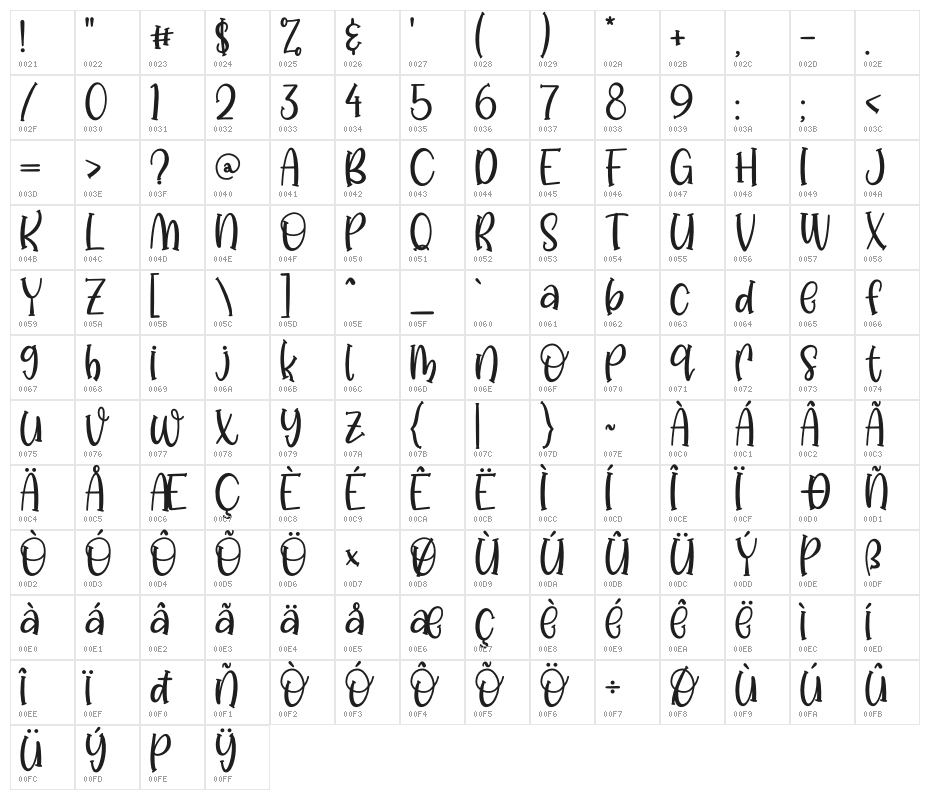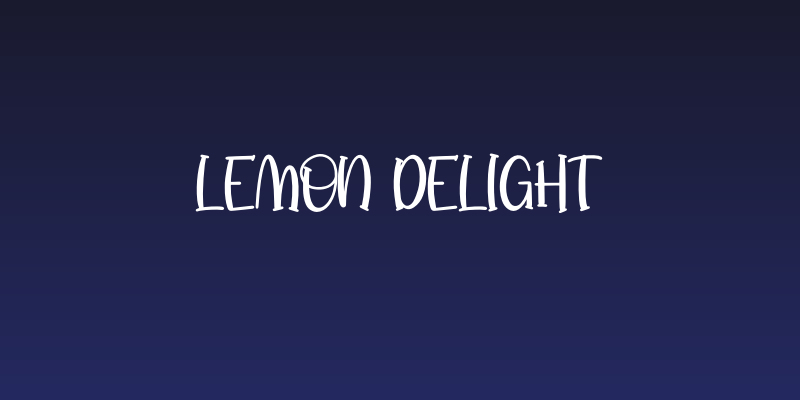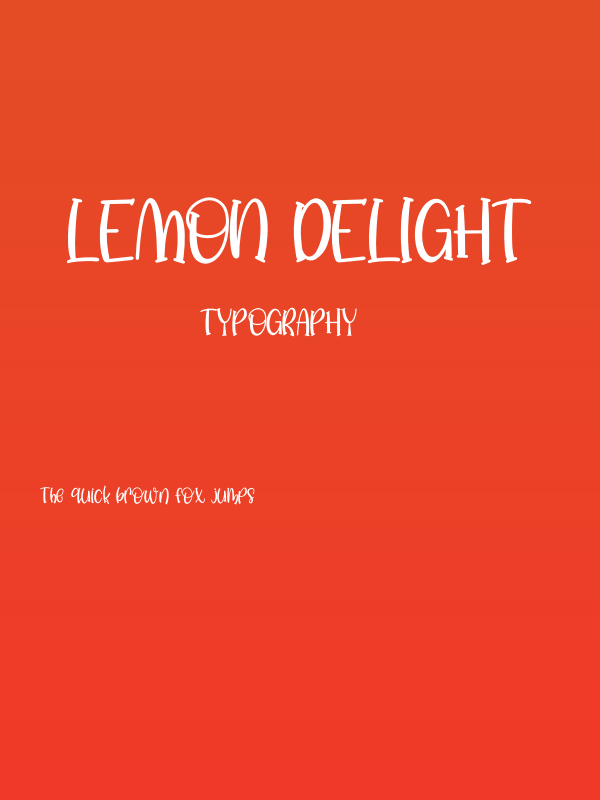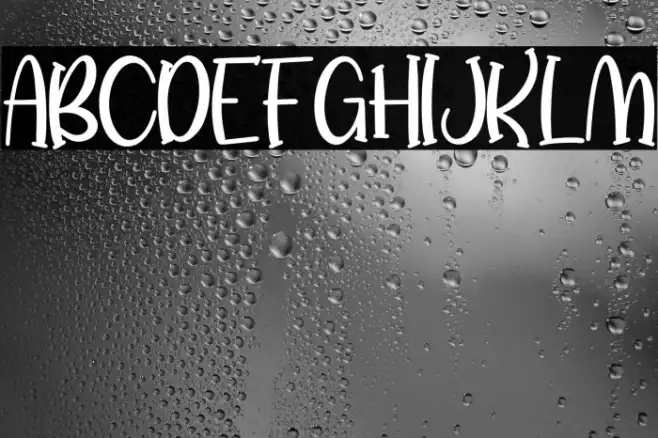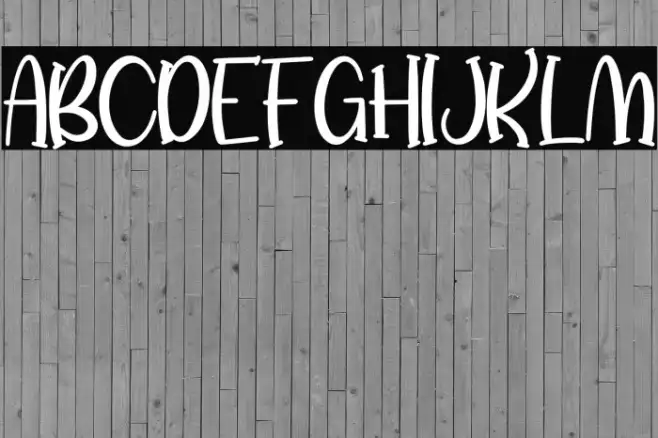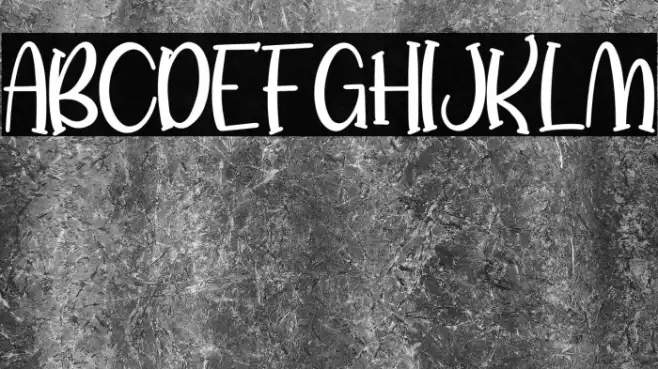
Lemon Delight Font
Lemon Delight Description
This font features a playful and whimsical style with a handwritten appearance. The letters are characterized by their flowing curves and varying stroke widths, giving them a lively and dynamic feel. The uppercase letters are bold and slightly elongated, while the lowercase letters maintain a consistent, rounded form. Numbers and special characters follow the same playful aesthetic, making the font suitable for creative and informal designs. The overall look is both approachable and energetic, perfect for projects that require a touch of personality and fun.
LEMON-DELIGHT UPPERCASE
LEMON-DELIGHT LOWERCASE
LEMON-DELIGHT OTHER CHARS
| Use Case | Logos, Headlines, Informal text |
| Proposed Projects | Ideal for greeting cards, children's books, playful branding, and social media graphics. |